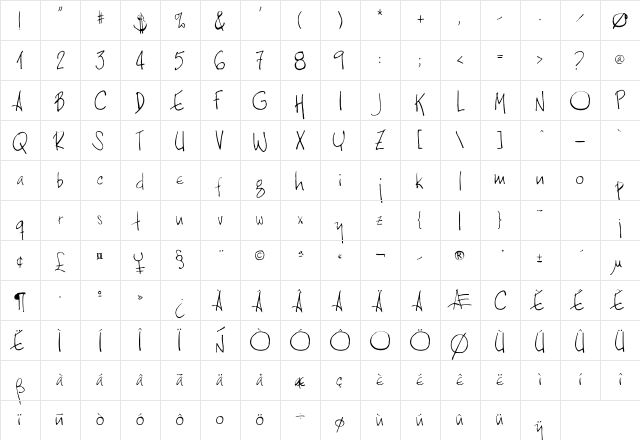
Ebu Regular Free Font
Ebu Regular
Foundry: v. . Copr. Type- -Tones/Jos M. Ur s. Barcelona
Design Context for Ebu
Ebu is a composed and adaptable typeface that performs quietly and consistently across a wide range of design contexts.
Who designed the Ebu Regular font?
This font was published by v. . Copr. Type- -Tones/Jos M. Ur s. Barcelona. Check the technical specs section for copyright and designer details.